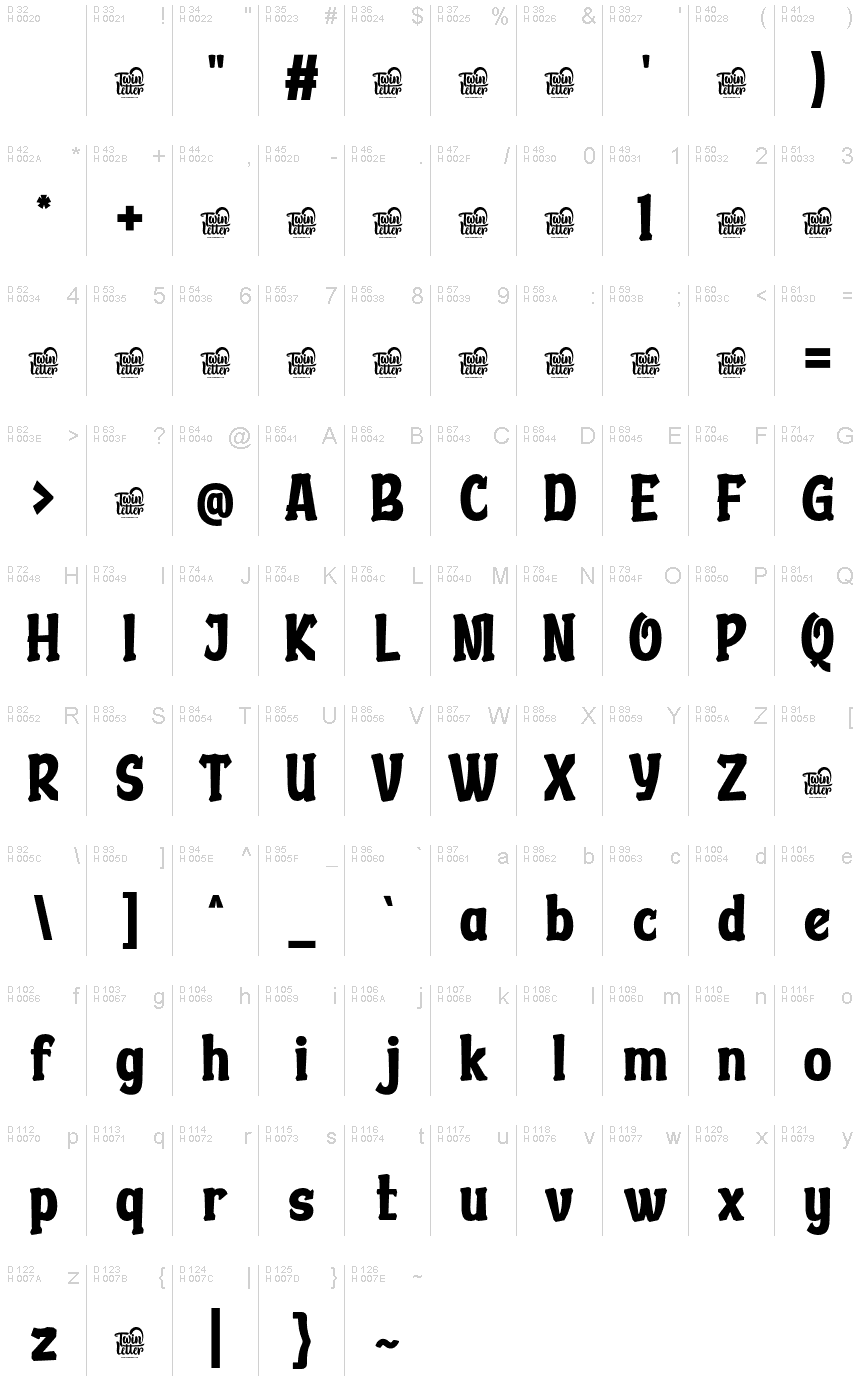
ABUTCINTrial-Regular
Abutcin, crafted by Twinletter, stands out with its bold and condensed display type, offering an aesthetic that commands attention. The font's strong characters have a dynamic presence on the page, making it perfect for headlines that demand to be read and designs that need to make a statement. The narrow width not only saves space but also adds to the font's modern appeal, while its weight ensures legibility even in busy contexts.
Ideal for branding, poster design, or any project looking for a touch of robust elegance—Abutcin is a versatile choice that can elevate your creative work.